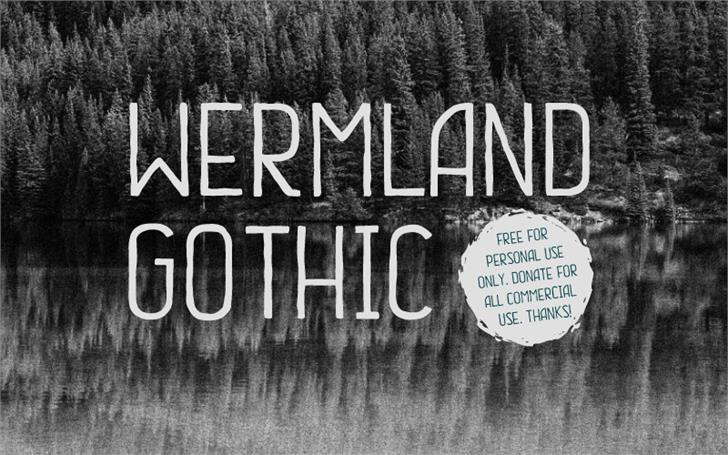
Wermland Gothic Font
Wermland Gothic is an all-new display font by HENRIavecunK. Just the right mix of retro, modern, and classic styles to spice up your designs. It works well by itself on a plain background, as a type-based t-shirt design, incorporated into a logo, or layered on top of photos.